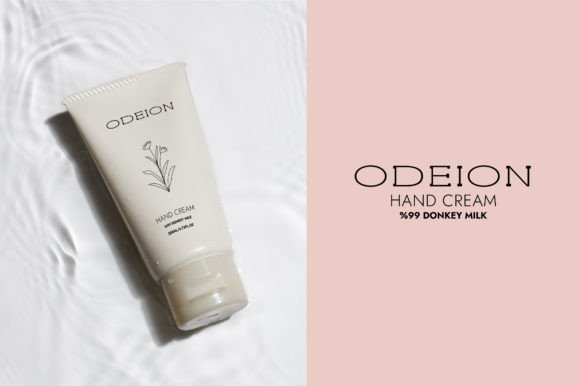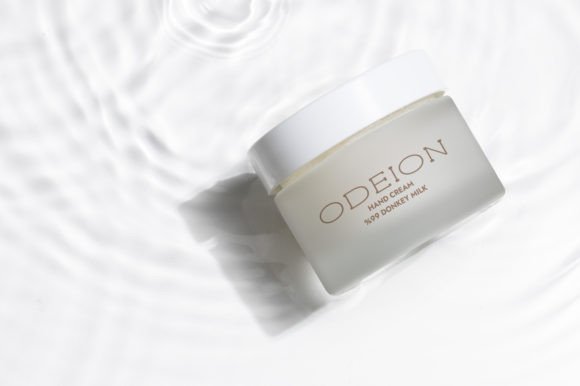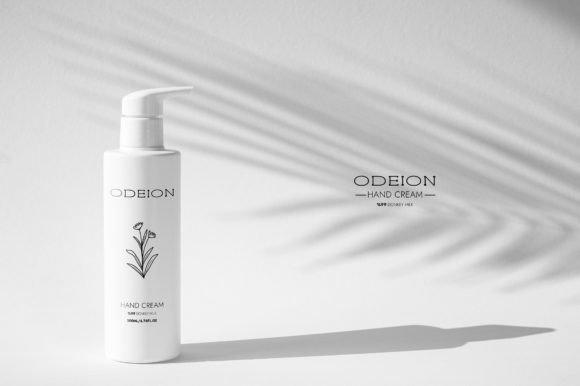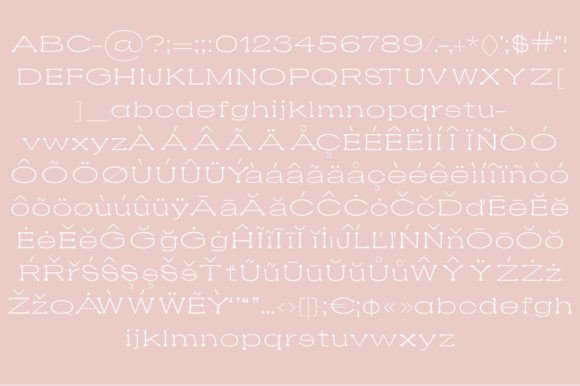
Odeion: An Elegant and Luxurious Slab Serif Typeface
Odeion is an elegant typeface that aims to achieve the most luxurious look possible for a slab serif font. Its designers carefully crafted delicate glyphs to create this effect. You can use Odeion beautifully for packaging design, fashion themes, perfume labels, cosmetics branding, social media posts, and more. When you confidently use it in your work, you’ll quickly see the amazing results it can produce.
Key Features of Odeion
- Elegant Design: Offers a refined look perfect for luxury projects.
- Slab Serif Style: Has unique serifs that add style while staying elegant.
- Delicate Glyphs: Features carefully made letters that boost its luxury feel.
- Fits Many Uses: Works well for various design projects in fashion, beauty, and lifestyle fields.
Best Uses for Odeion
Odeion works especially well for:
- Fancy packaging design
- High-end fashion branding
- Perfume and fragrance labels
- Cosmetics product packaging
- Stylish social media posts
- Upscale magazine layouts
- Luxury brand ads
When using Odeion in your designs, keep these tips in mind:
- Use for headlines or short text to show off its elegant style.
- Try different sizes to highlight the font’s delicate features.
- Pair with simpler fonts for longer text to create contrast.
- Use its luxury look to create designs that feel fancy and special.
In conclusion, Odeion is a great choice for designers who want an elegant and luxurious slab serif font. It can make many types of designs look more sophisticated. Whether you’re working on fancy packaging, creating fashion themes, or making content for perfume and cosmetics brands, Odeion offers a perfect mix of style and refinement.
Moreover, Odeion’s unique design shines in various settings that need a luxury look. From social media posts to high-end magazine layouts, this font can improve your projects with its special style. Its elegant yet readable look works well in designs that aim to show exclusivity and refinement.
To sum up, Odeion truly captures the essence of luxury in modern slab serif letter design. It works well across different high-end uses, showing how flexible it is. For those wanting to add a touch of refined charm to their work, Odeion can make themed designs even better with its unique style. It’s the perfect pick for designers who want to make a sophisticated, stylish impact across many types of luxury-focused creative projects.